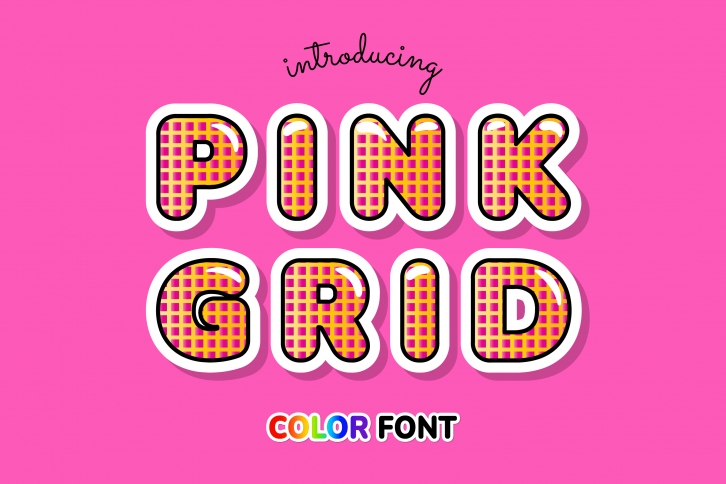
Pink Grid is an incredibly cool color font designed in the style of Mesh. Whether you use it for custom designs, DIY crafts, or just any creation that requires a lovely touch, this font will be an amazing choice.